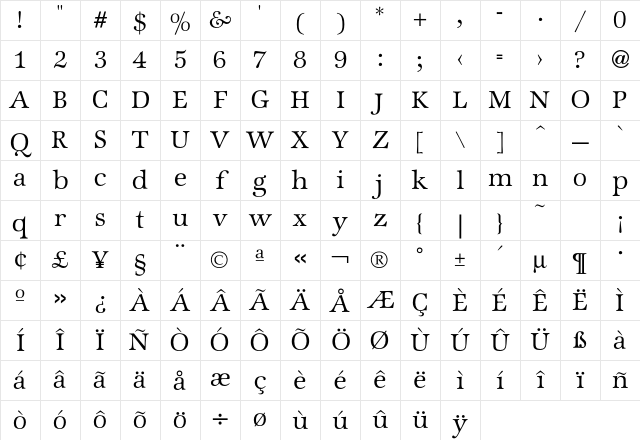
Zapf InterLight
Style: InterLight
Zapf Family
Zapf InterLight
Design Context for Zapf
Zapf is a composed and adaptable typeface that performs quietly and consistently across a wide range of design contexts. Its slender proportions lend an understated elegance to any composition.